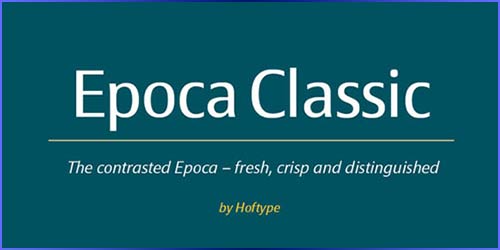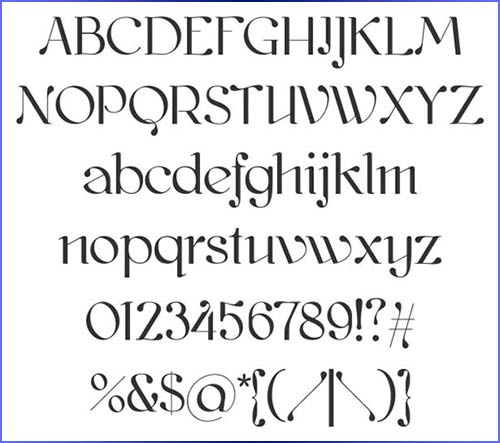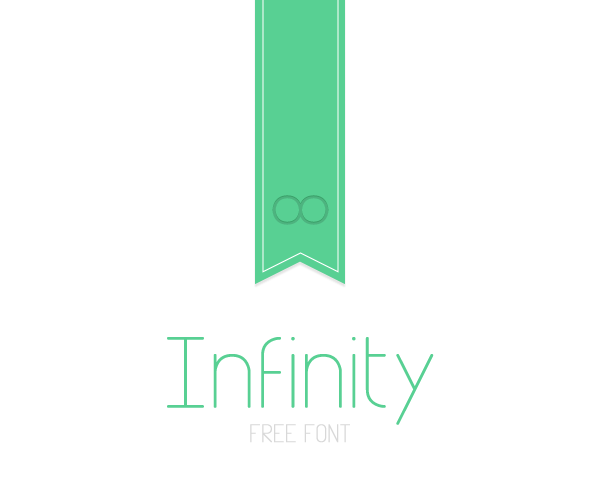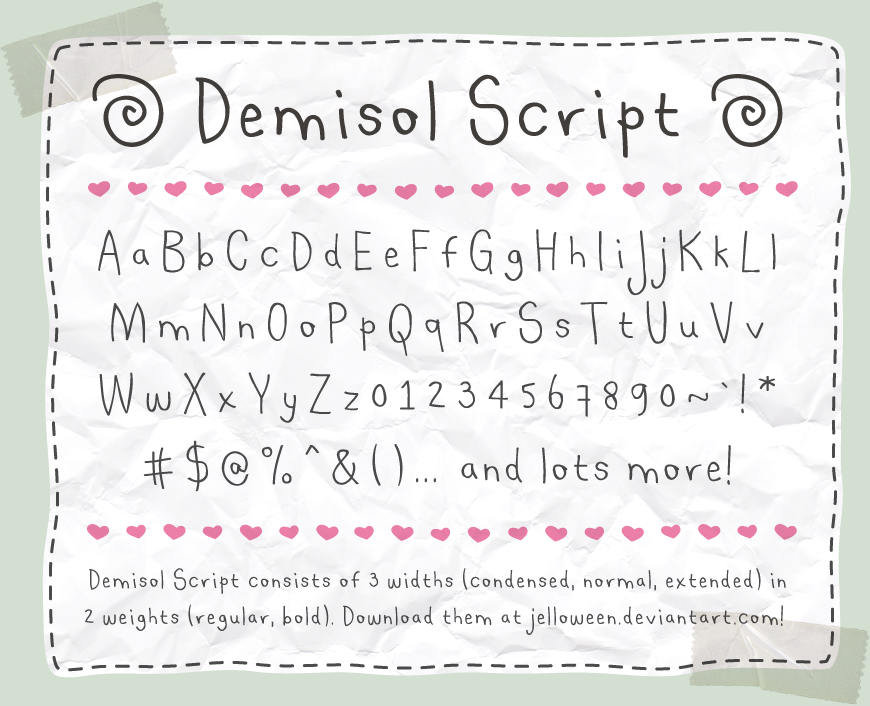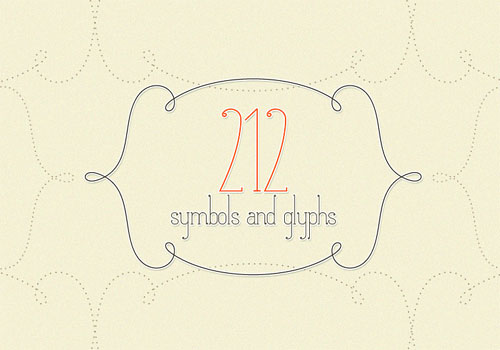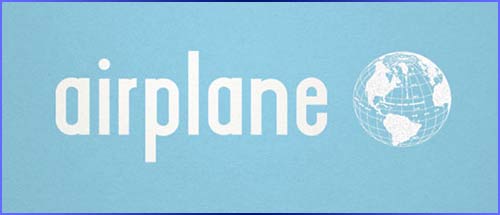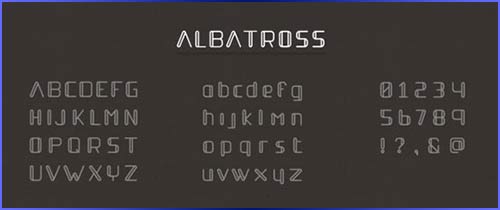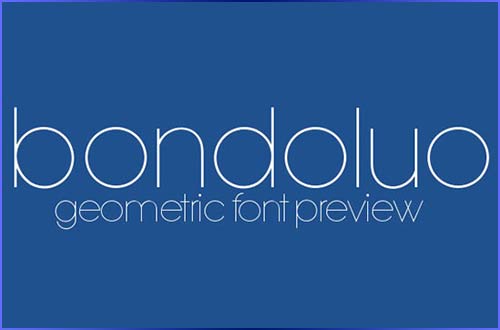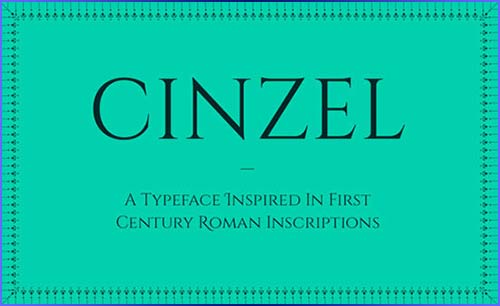
Professional Free Light and Modern Fonts
If you love light fonts but looking for something really cool in the category which is not too dominant but a light version of the actual font then one of these light fonts will be your option.
All light fonts are not good enough to be added into this post so we have selected a variety of nice looking light fonts and to add to value to this post, all of these fonts are free to download for your customized use.
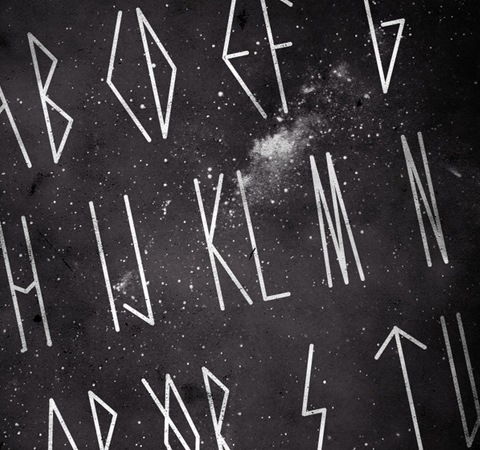
Penna
Respective
Rochester
Wayfinding Sans
Echinos Park Script
Bira
Airplane
Sail Away
Infinity
Dekar
Ovo
Acme
Dude
Equal Sans
Exo Font Family
Thin Design
Bitter
Source Sans Pro
Demisol Script Font
Construthinvism
Promocyja
Mikodacs
47 – Typeface
Nagasaki
Epoca Classic
Albatross
Murena
Bondoluo Peek
Matilde
Zag Font
Accent Font
Sahara
Venera
Rationale
Cinzel Typeface
Lolita
SciFly Sans Font
Fengardo Neue
CM Sans Serif 2012
Snob Font